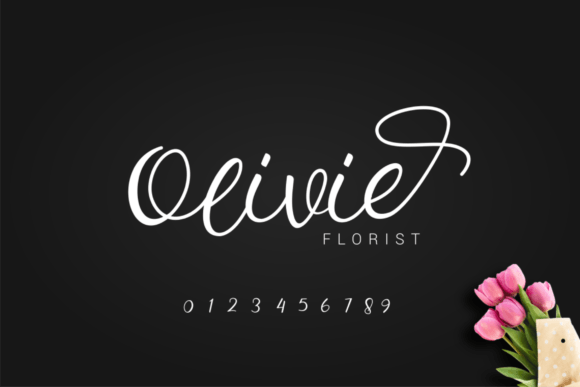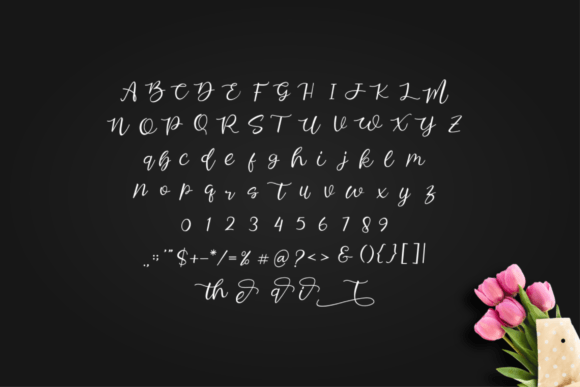
Introduction to Sedeiteia Font
Sedeiteia is a modern, bold, and authentic handwritten font suitable for any branding project like logo, t-shirt printing, export, and many more.
It will look outstanding in a wide range of contexts .
Key Features of Sedeiteia Font
Why Choose Sedeiteia Font?
Sedeiteia Font offers exceptional quality and versatility, making it a valuable addition to your design toolkit. Whether you’re creating for personal projects or commercial use, Sedeiteia Font delivers professional results.